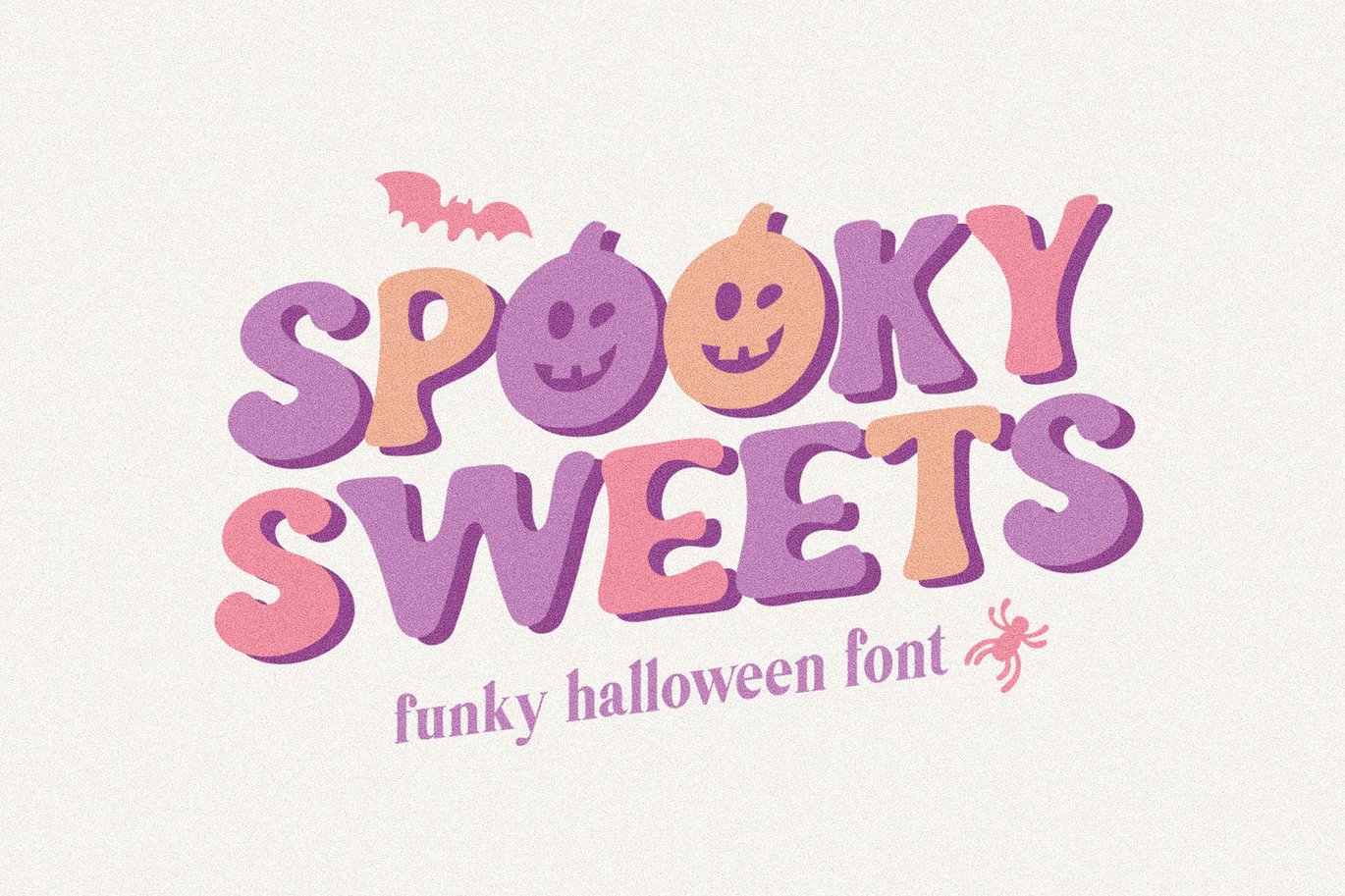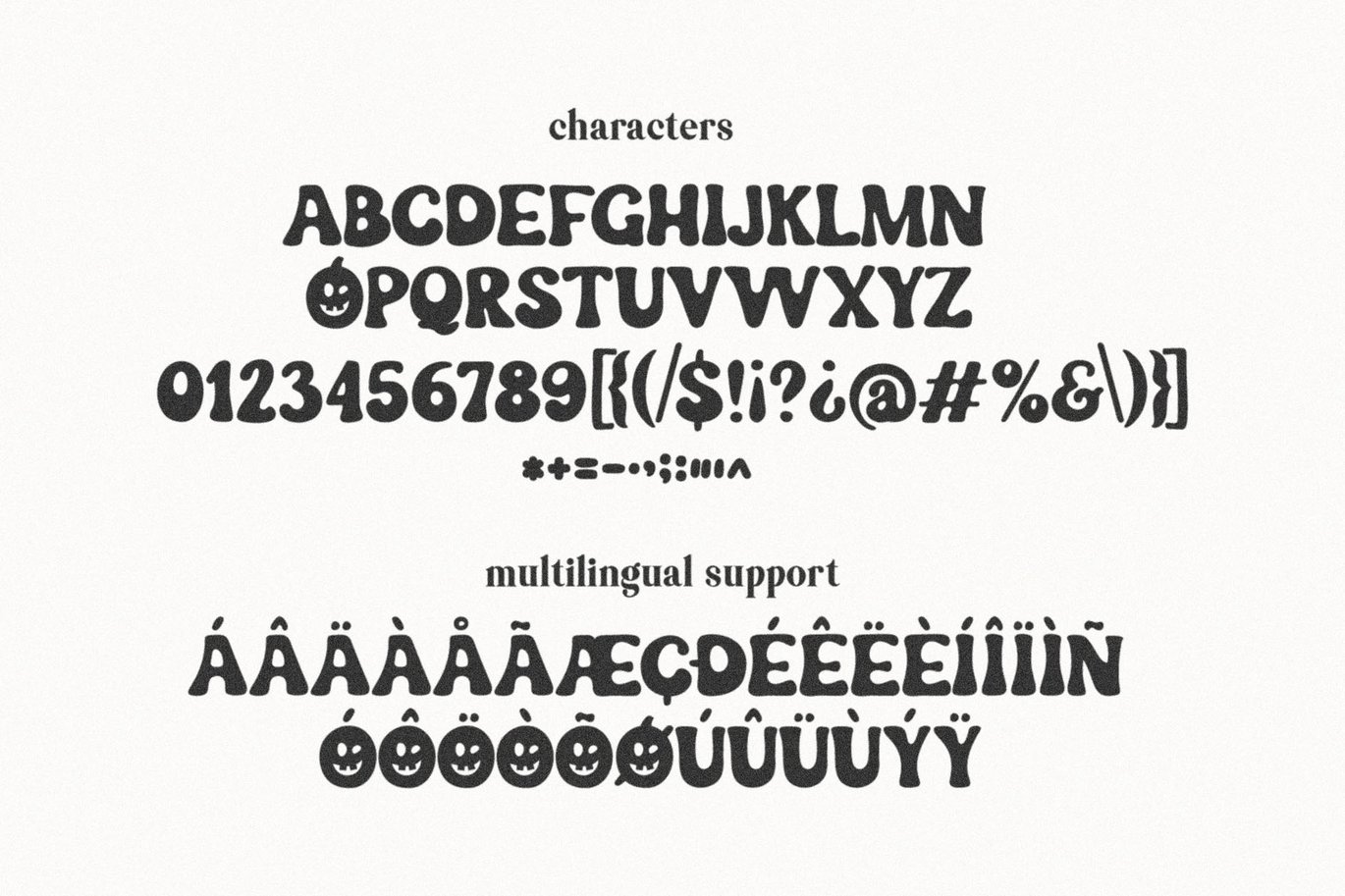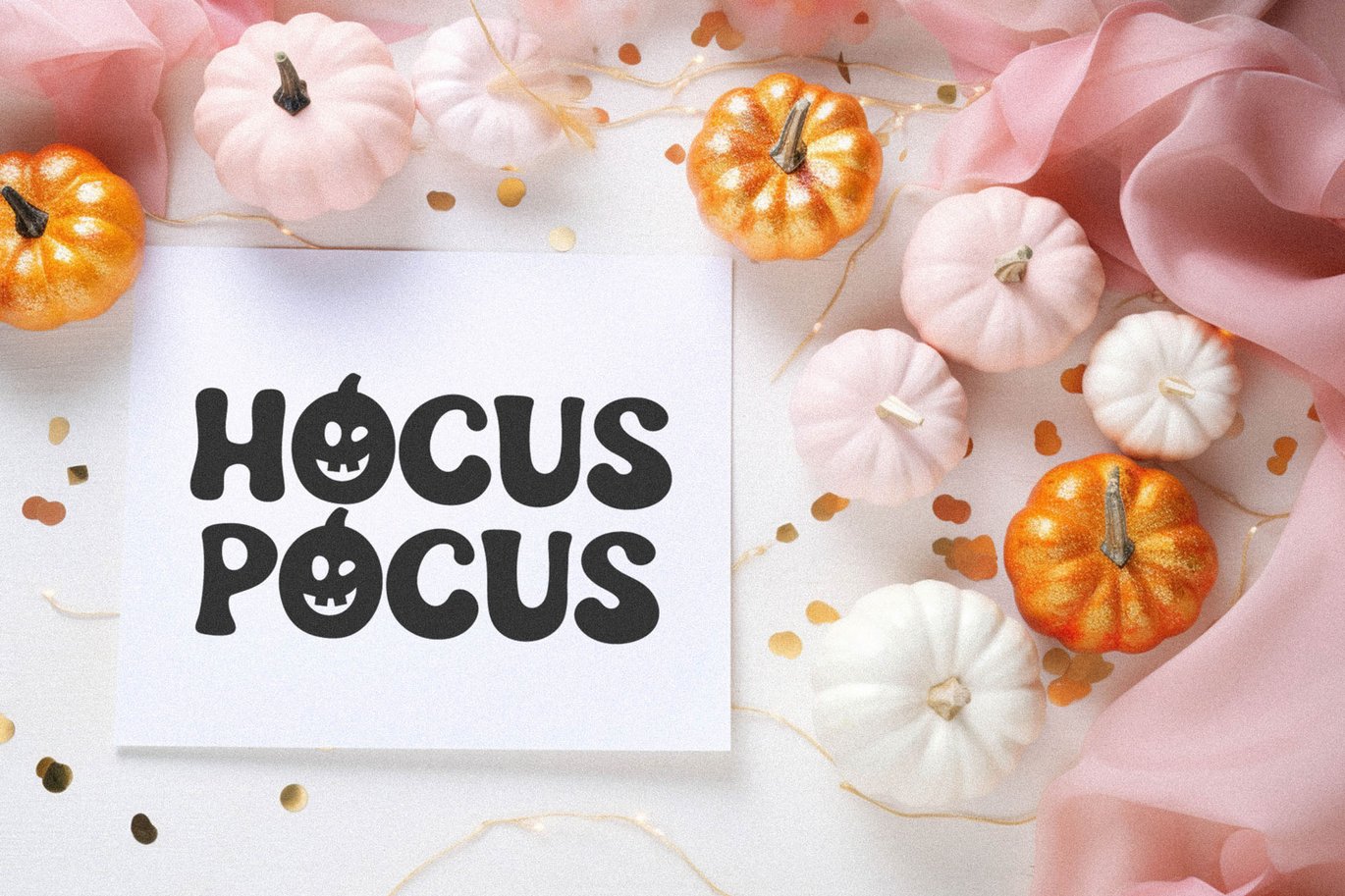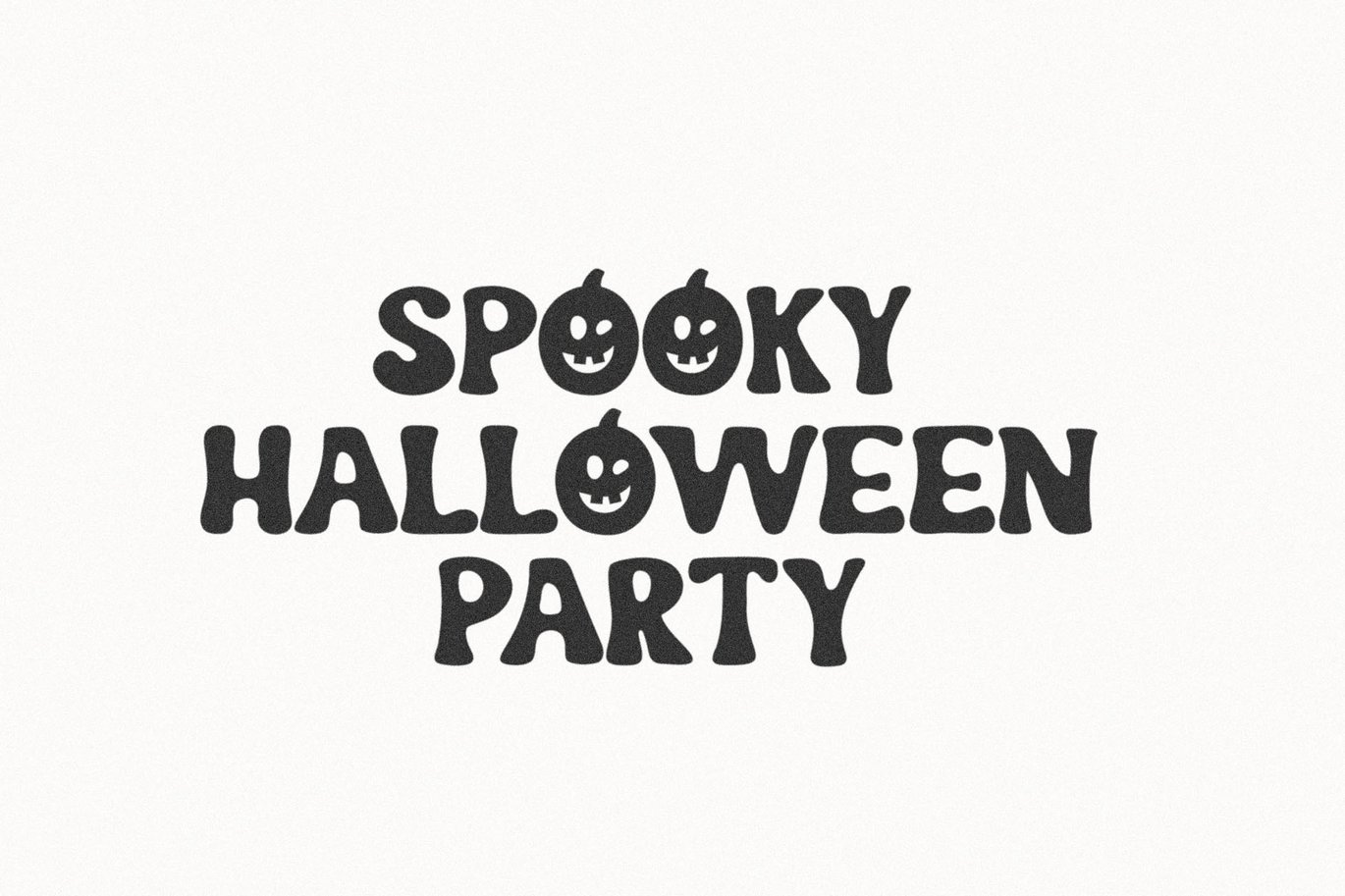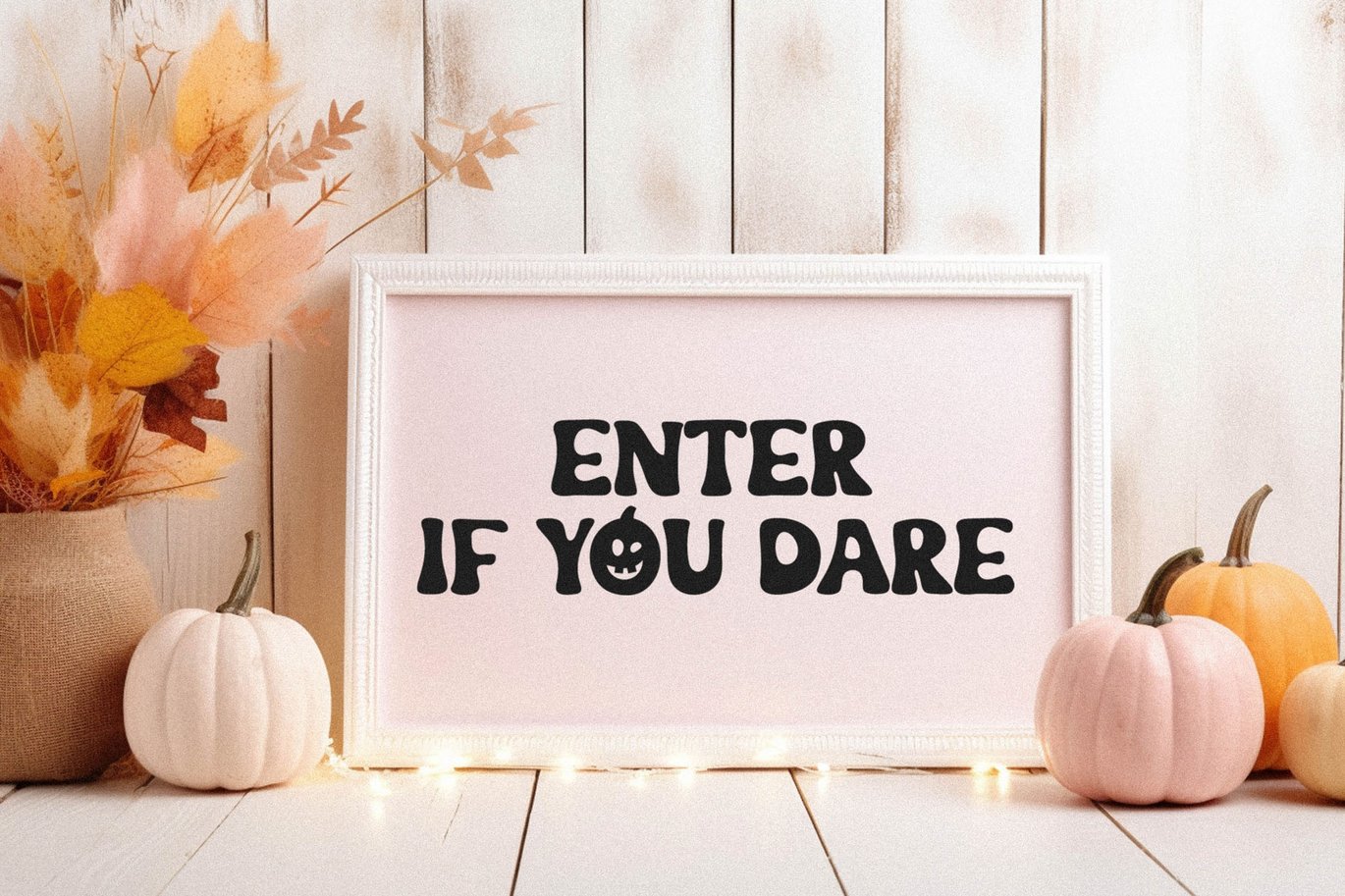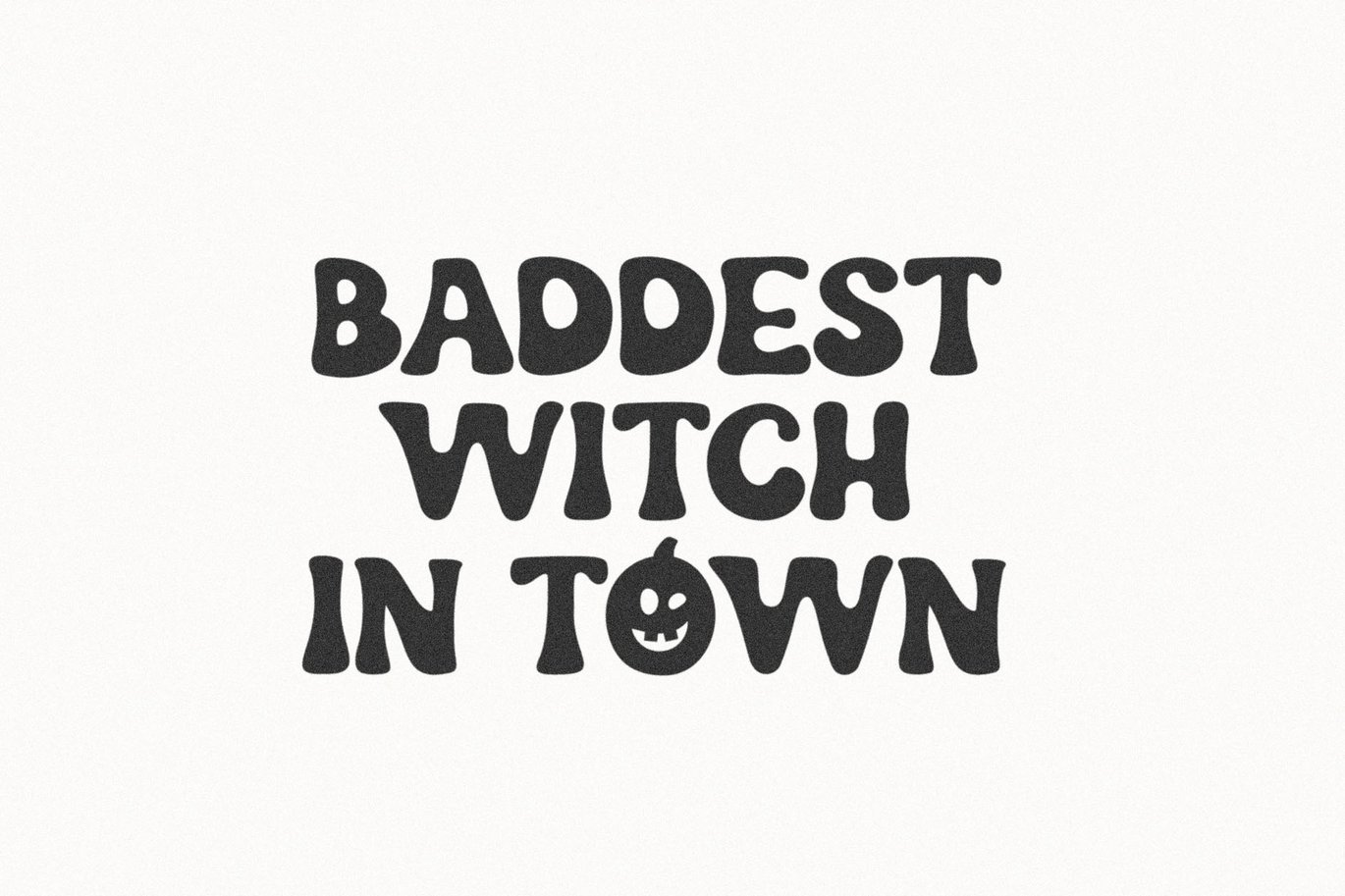
Spooky Sweets Funky Halloween Font
Spooky Sweets a funky halloween font. Perfect to create stickers, quotes, invitations, prints etc
- Capital letters only